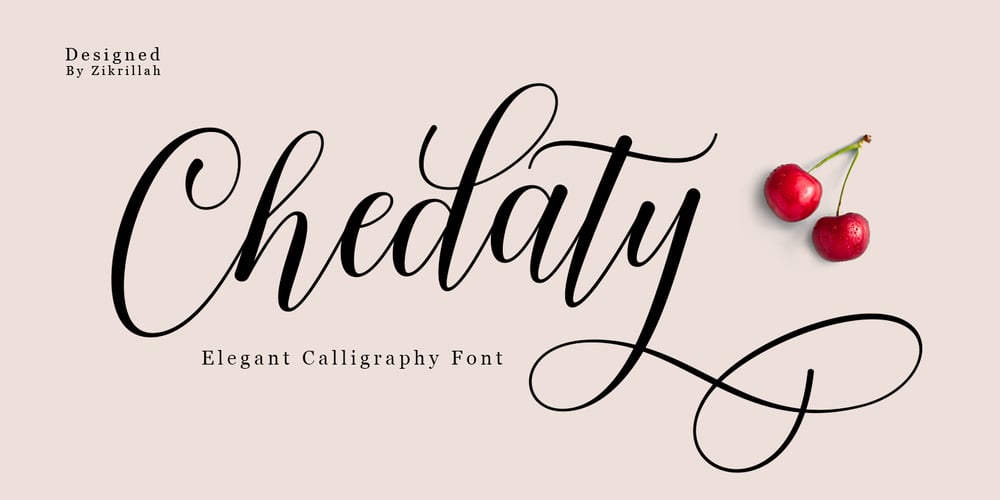
Chedaty Font Family was designed by Zikrillah and published by Suza Studio. Chedaty contains 1 styles and family package options. Chedaty Script: a sweet, casual and dynamic handwritten fonts with dancing basics. Also available are Platypus Sans & Ornaments to help you mix and match them to suit your creative work in harmony. all to add an authentic touch to your design. Perfect for Branding, Logo, Greeting Cards, Wedding Stationery, Quotations etc.It comes with a set of Alternative OpenType Characters, Ligatures and various language support. To activate the OpenType Stylistic alternative, you need a program that supports OpenType features such as Adobe Illustrator CS, Adobe Indesign & CorelDraw X6-X7, Microsoft Word 2010 or newer versions.This is coded with Unicode PUA. Mac users can use Font Book and Windows users can use Character Maps to view and copy any of the additional characters to paste into your favorite text editor / application.Thank you very much for viewing, I really hope you enjoyed it and don’t hesitate to send me a message if you have problems or questions